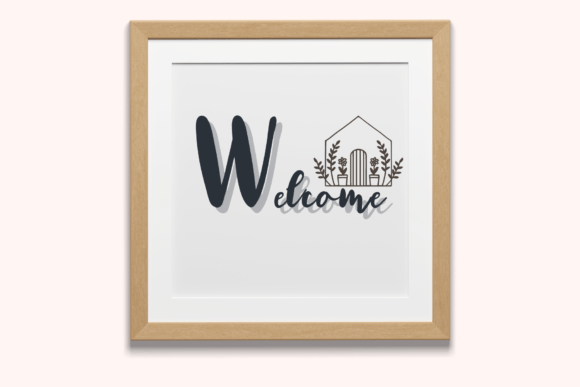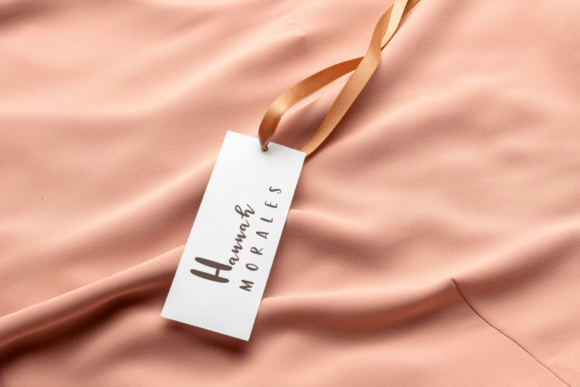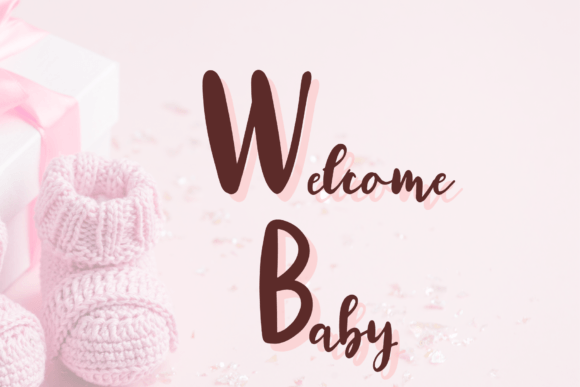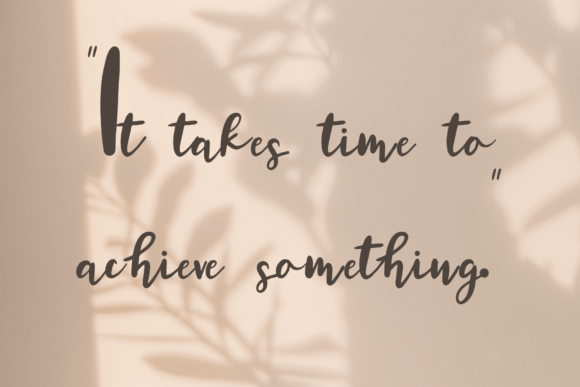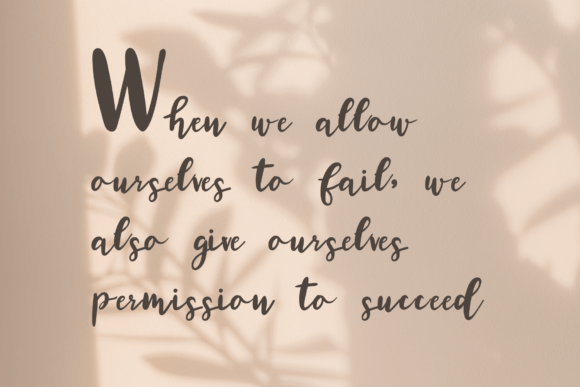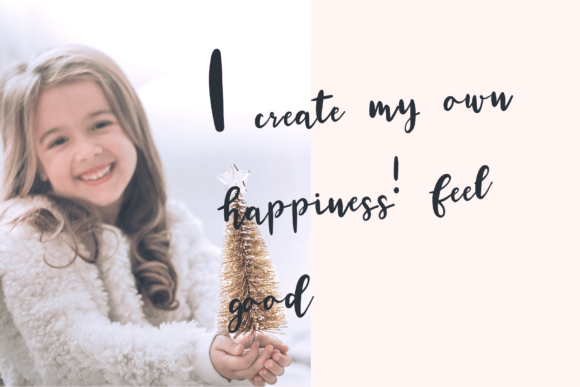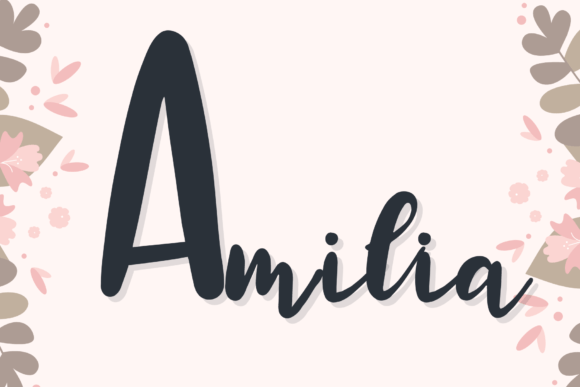
Introducing Amilia Font: Elevate Your Designs with Elegance and Class
Are you a designer or crafter looking for a font that can add a touch of sophistication and elegance to your projects? Look no further than Amilia Font. This friendly handwritten font is perfect for a wide range of design applications, from logos and wedding designs to social media posts and product packaging.
What Makes Amilia Font Special?
Amilia Font is a beautifully crafted handwritten font that exudes warmth and friendliness. Its elegant and classy design makes it perfect for designers and crafters who want to add a touch of sophistication to their projects. Whether you’re working on a logo, wedding invitation, or social media post, Amilia Font is sure to impress.
Key Features of Amilia Font
- PUA Encoded: Amilia Font is PUA encoded, which means you can access all of the amazing glyphs and ligatures with ease. This makes it easy to customize your designs and add unique touches.
- Handwritten Design: Amilia Font features a beautiful handwritten design that is both elegant and friendly. Its unique character makes it perfect for a wide range of design applications.
- High-Quality Design: Amilia Font is designed with high-quality and precision, ensuring that it looks great in any design project.
Use Amilia Font for a Wide Range of Design Projects
Amilia Font is versatile and can be used for a wide range of design projects, including:
- Logos: Add a touch of elegance and sophistication to your logos with Amilia Font.
- Wedding Designs: Make your wedding designs stand out with Amilia Font’s beautiful handwritten design.
- Social Media Posts: Elevate your social media posts with Amilia Font’s elegant and classy design.
- Advertisements: Use Amilia Font to add a touch of sophistication to your advertisements.
- Product Packaging: Make your product packaging stand out with Amilia Font’s unique and elegant design.
- Product Designs: Add a touch of elegance and class to your product designs with Amilia Font.
- Labels: Use Amilia Font to create beautiful and elegant labels.
- Photography: Add a touch of sophistication to your photography with Amilia Font’s beautiful handwritten design.
- Watermark: Use Amilia Font to create elegant and classy watermarks.
- Invitations: Make your invitations stand out with Amilia Font’s beautiful handwritten design.
- Stationery: Elevate your stationery with Amilia Font’s elegant and classy design.
Why Choose Amilia Font?
There are many reasons why you should choose Amilia Font for your design projects. Here are a few:
- Elegant and Classy Design: Amilia Font features an elegant and classy design that is perfect for designers and crafters who want to add a touch of sophistication to their projects.
- Versatile: Amilia Font is versatile and can be used for a wide range of design applications.
- Easy to Use: Amilia Font is easy to use and can be accessed with ease, thanks to its PUA encoding.
- High-Quality Design: Amilia Font is designed with high-quality and precision, ensuring that it looks great in any design project.
In conclusion, Amilia Font is a beautiful and elegant handwritten font that is perfect for designers and crafters who want to add a touch of sophistication to their projects. Its versatile design makes it perfect for a wide range of design applications, from logos and wedding designs to social media posts and product packaging. With its PUA encoding and high-quality design, Amilia Font is a great choice for any design project.